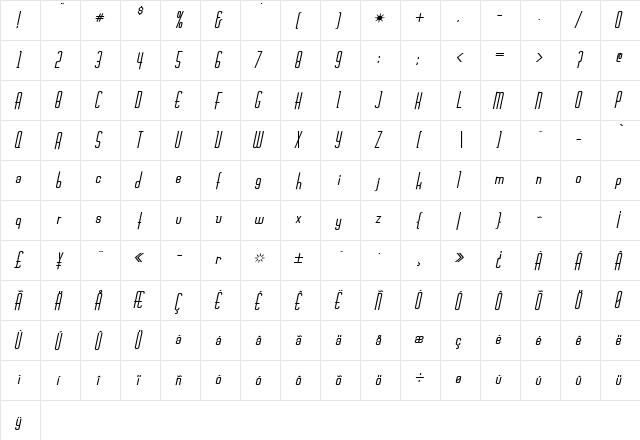
Chasline Bold Italic
Design Context for Chasline Typeface
Chasline is a composed and adaptable typeface that performs quietly and consistently across a wide range of design contexts. The slanted form adds forward momentum and visual energy. Its bold stroke weight gives it real presence on the page.
Pro Tip: Use Chasline for emphasis, pull quotes, and subheadings where its slanted energy can add rhythm to the layout.